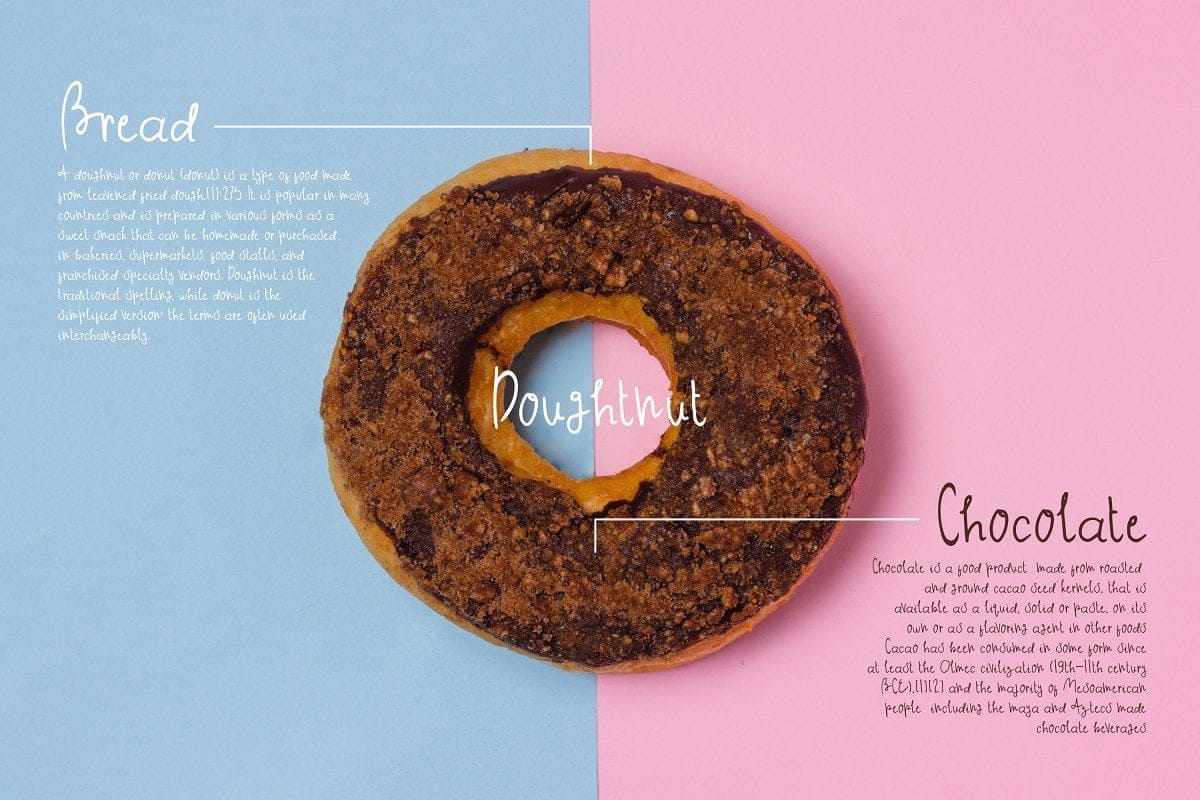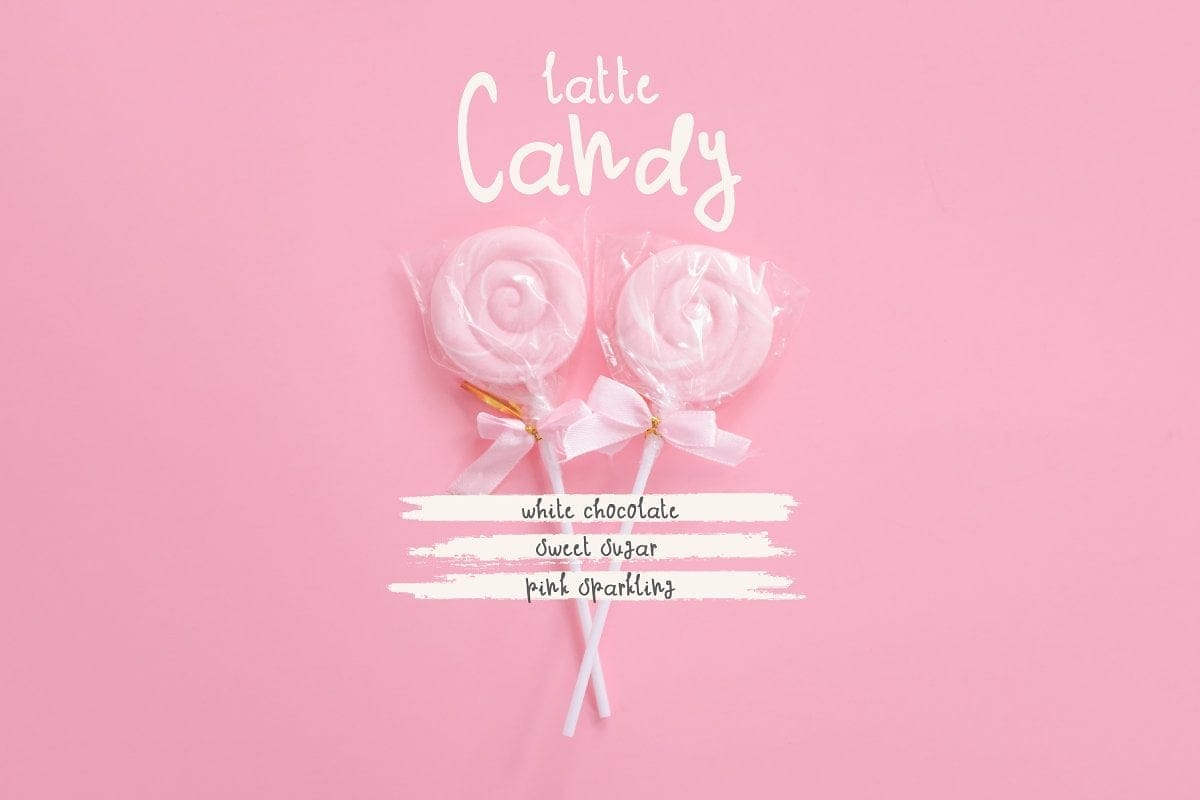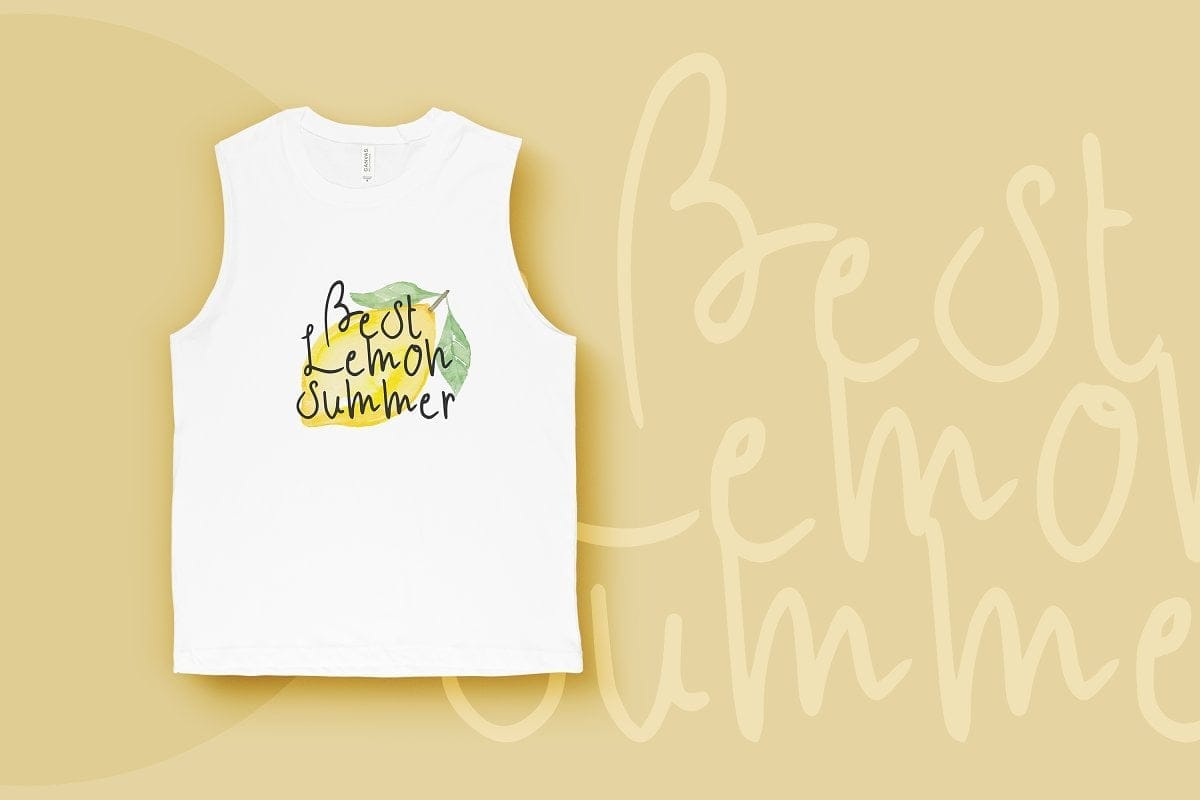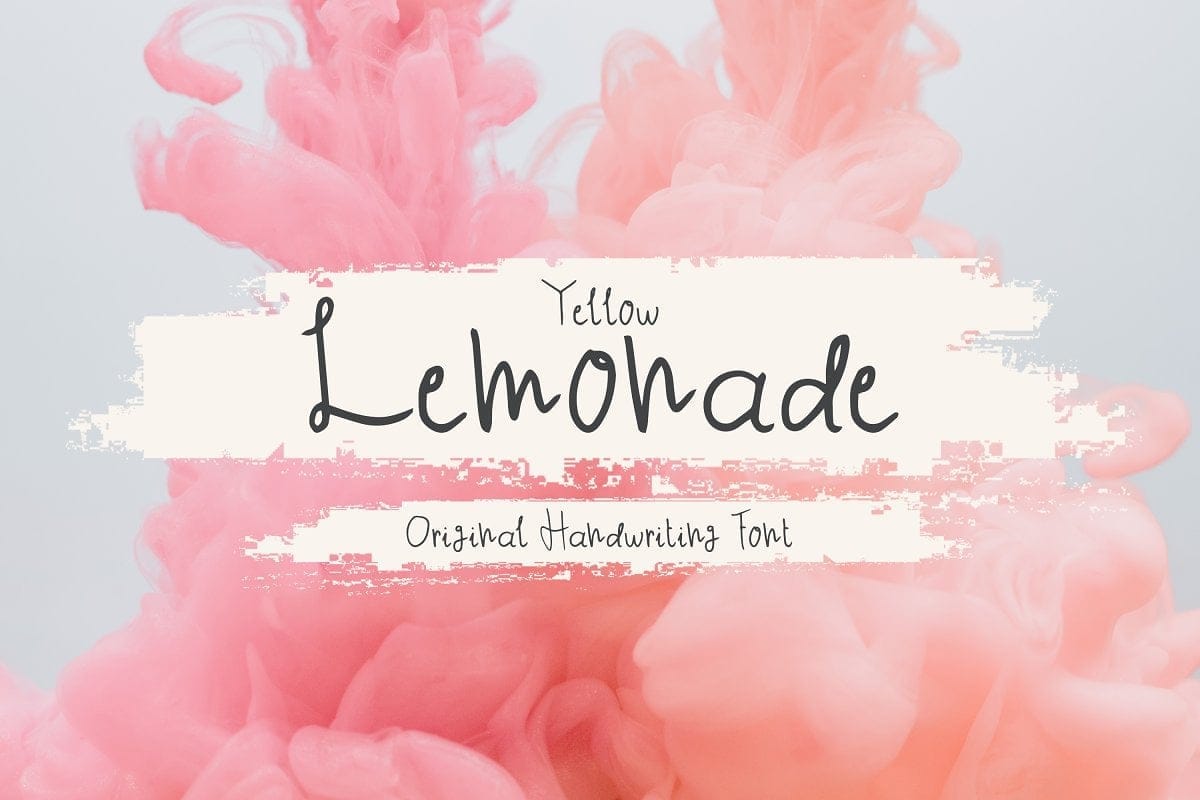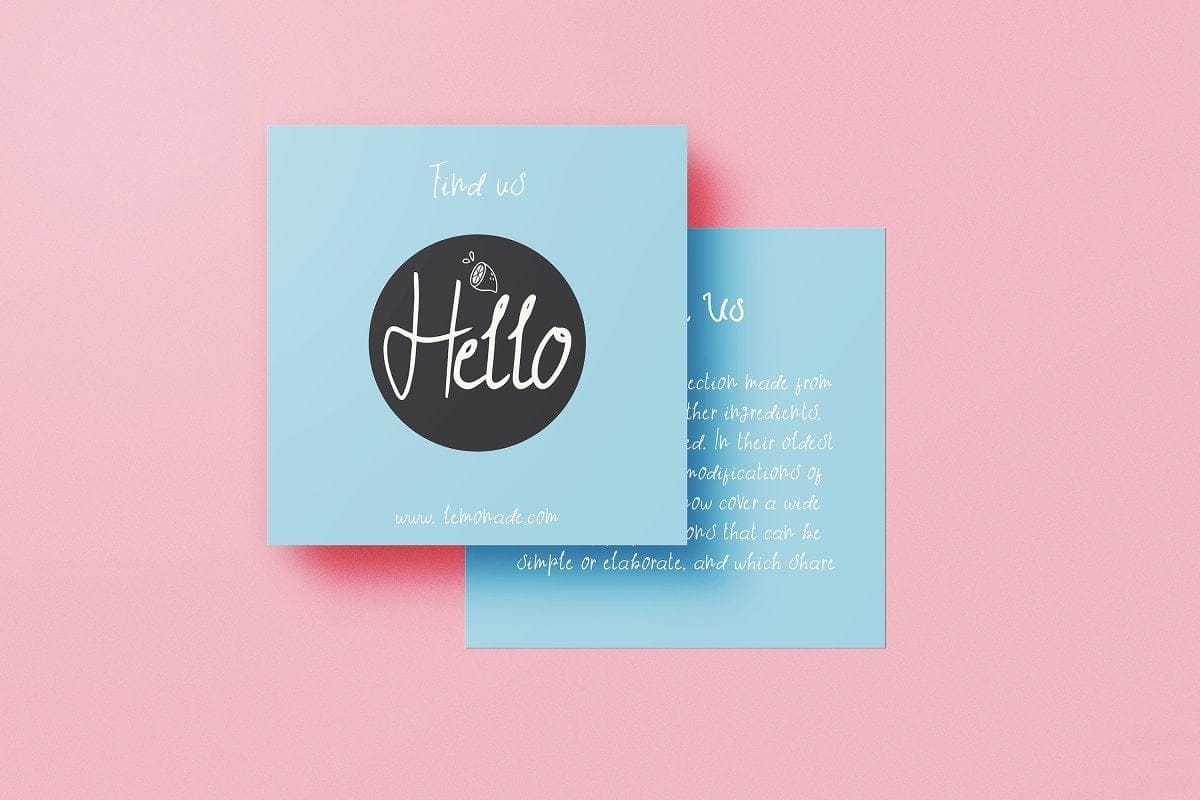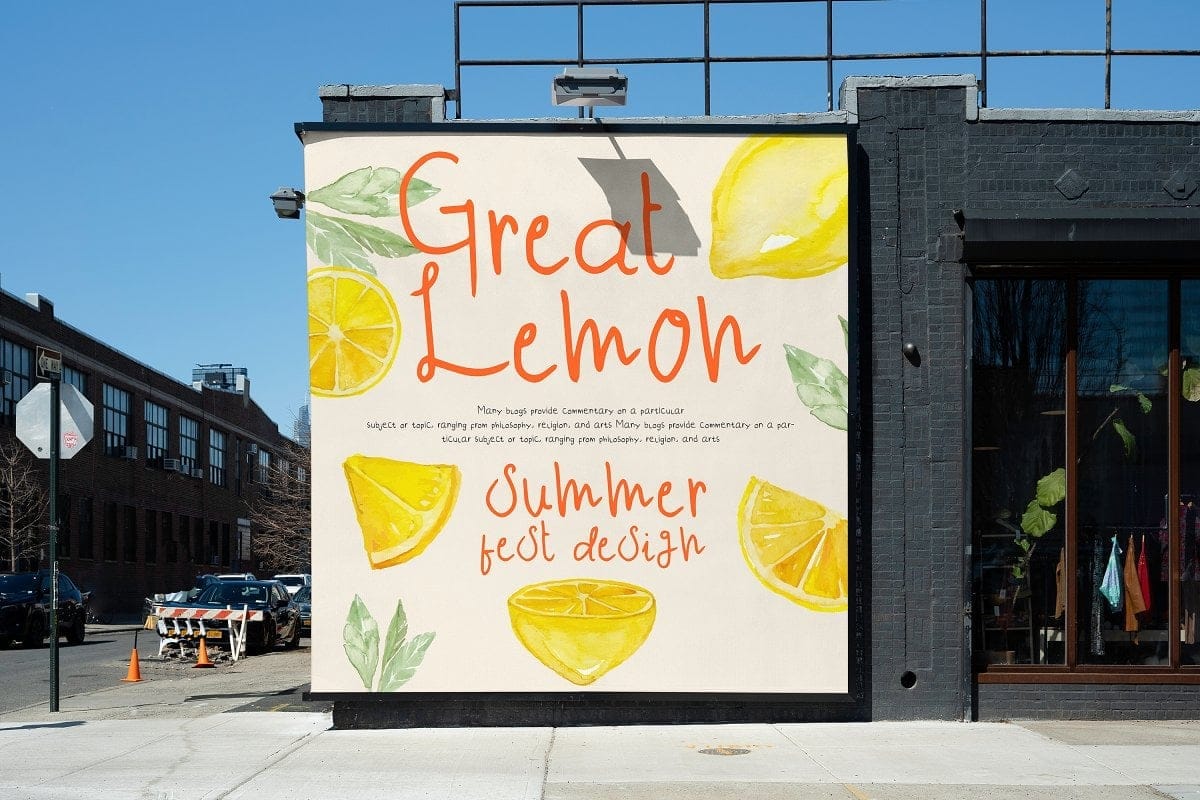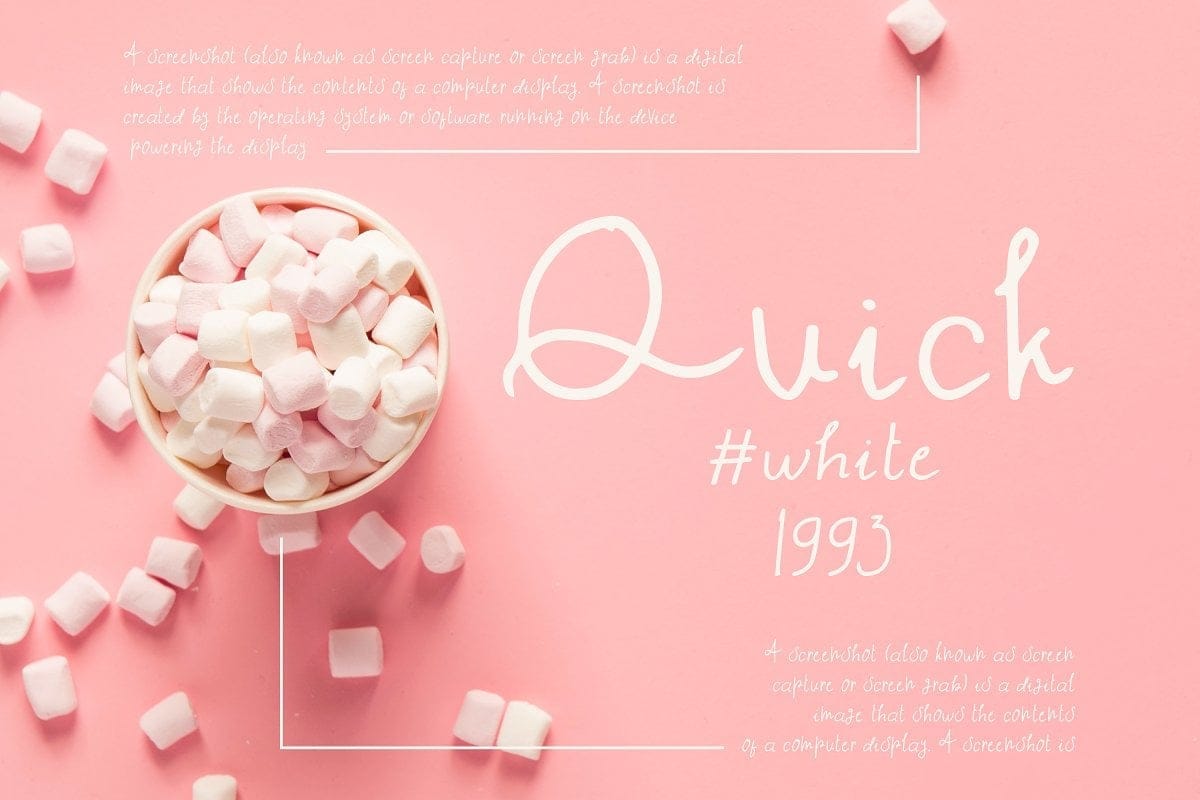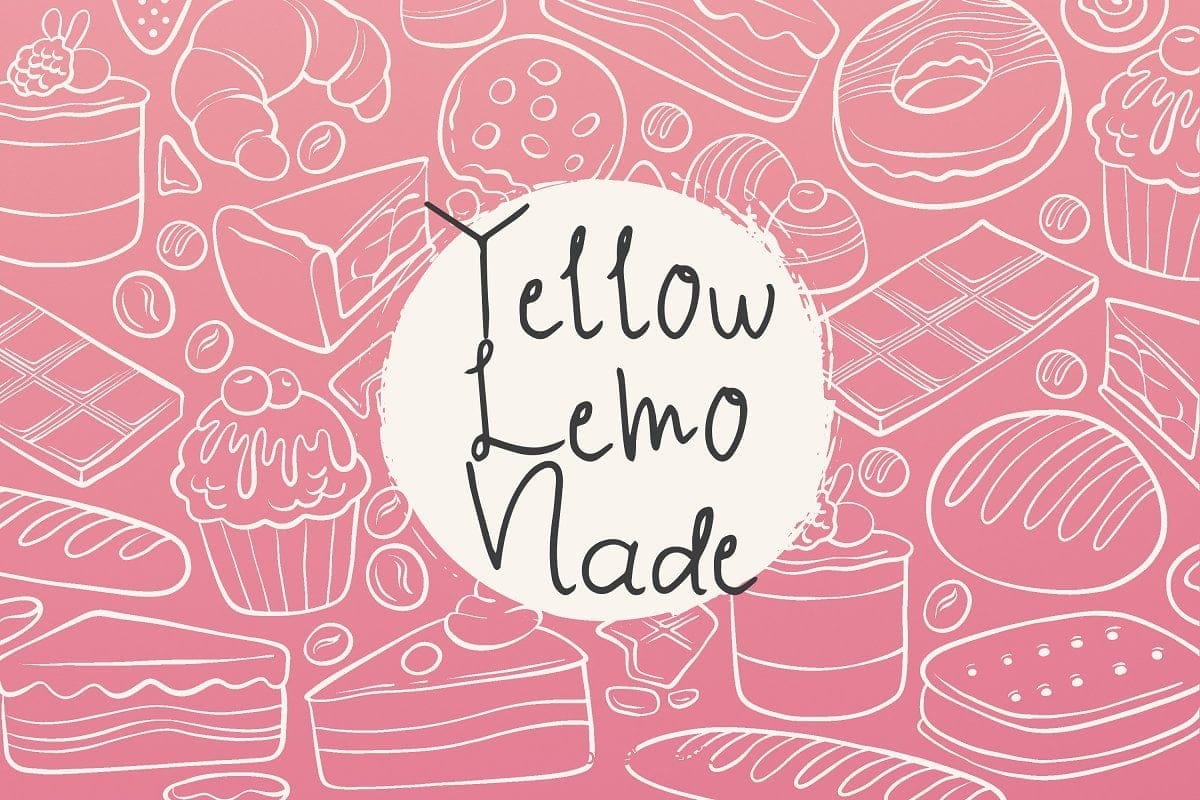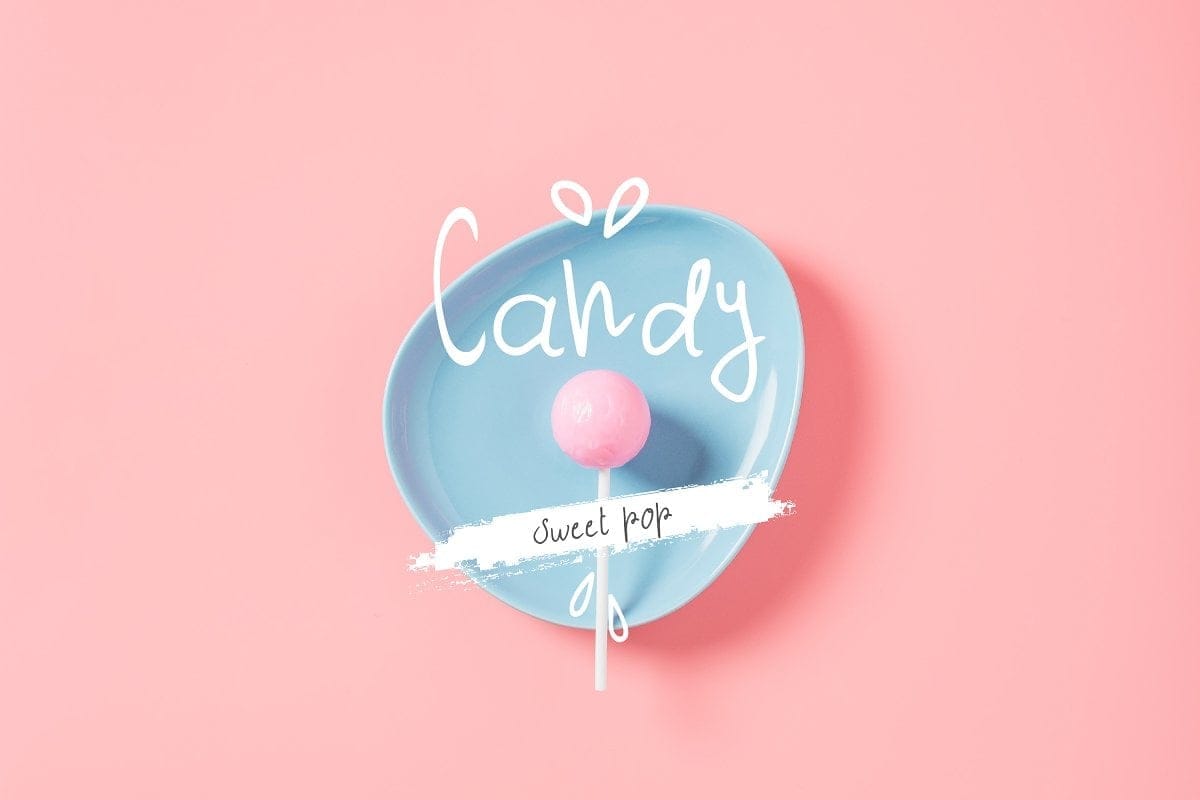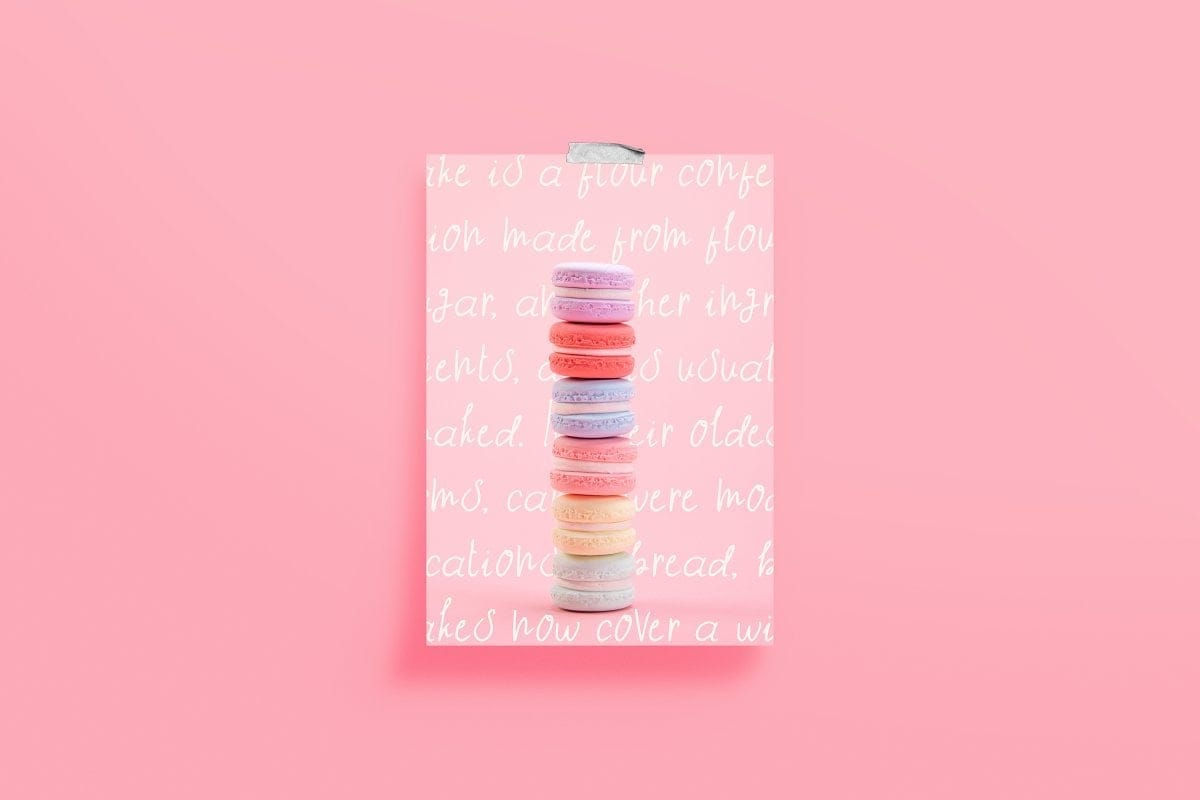
Yellow Lemonade Font
Intorduce
Yellow Lemonade is unique handwriting font. Created with original handmade sketch. This font suit for personal & commercial project such a poster, letter, headline, web blog, social media post, stories, banner, Packaging, T-shirt design, pillow, wedding invitation, or even for logo design.
Make your business stand out by writing in a way that’s unique to you. Use our handwriting font and give your brand a distinctive look.